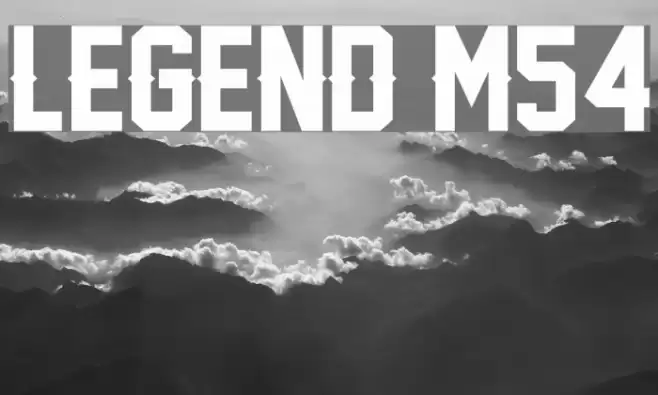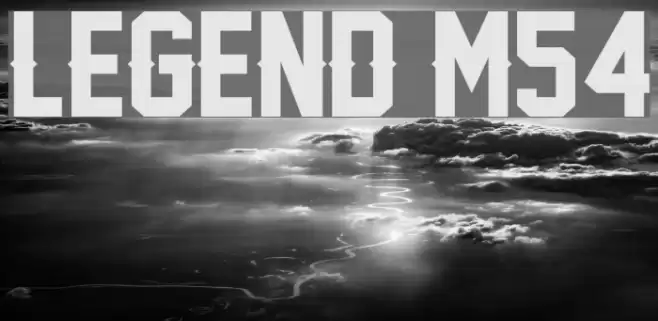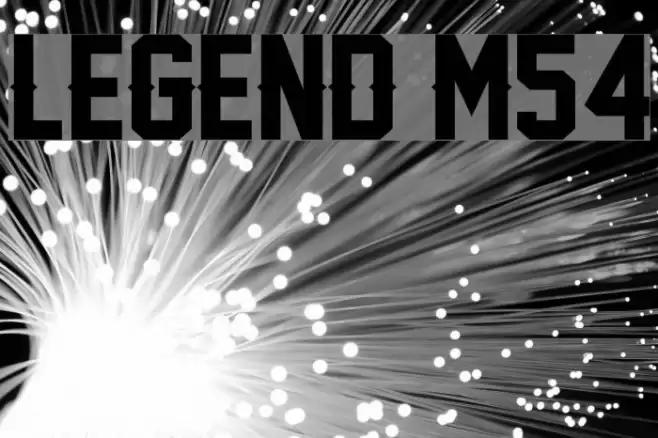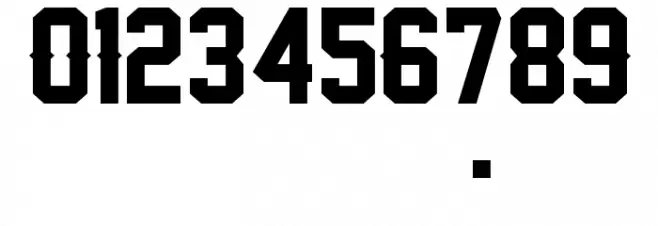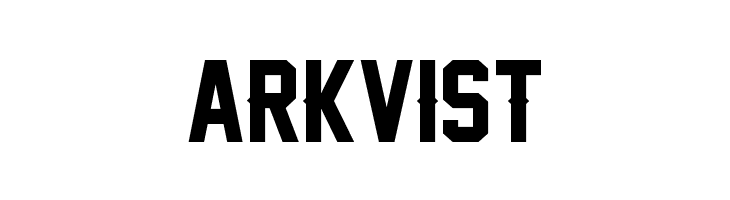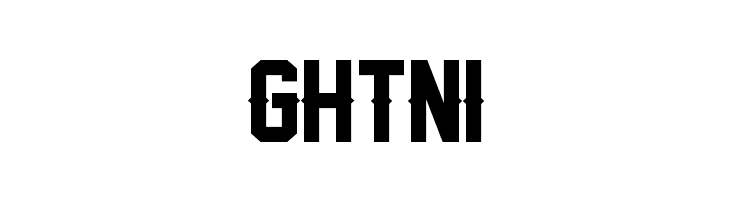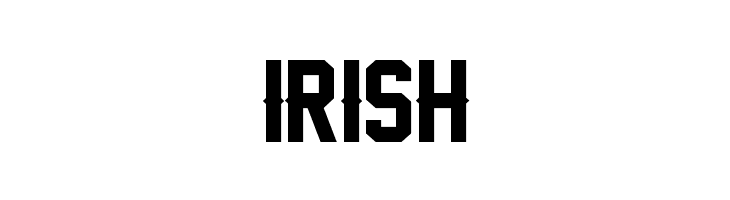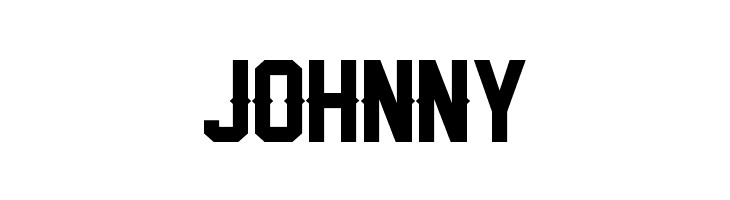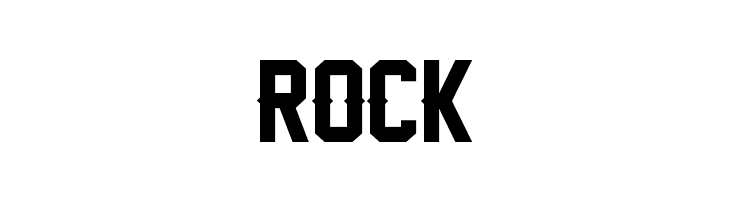
Legend M54 Font
Legend M54 Description
This font features a bold, geometric design with sharp, angular edges and a strong presence. The characters are constructed with a uniform thickness, giving it a solid and impactful appearance. The uppercase letters are particularly striking, with a blocky style that commands attention. The numerals and special characters maintain this bold aesthetic, ensuring consistency across all glyphs. This font is ideal for projects that require a modern and assertive look, making it suitable for headlines, posters, and branding materials.
A bold, geometric font with sharp, angular edges and a strong presence from Uncategorized fonts.
- Proposed Projects: Ideal for headlines, posters, branding, and any project requiring a modern, assertive look.